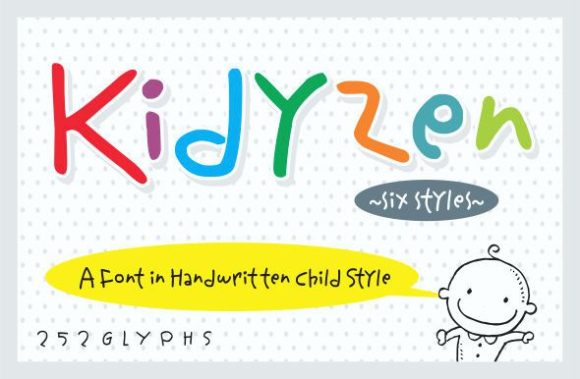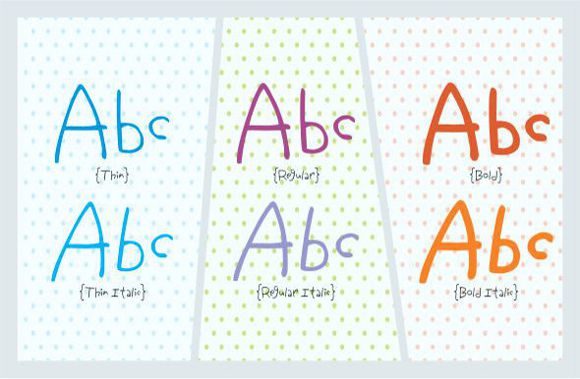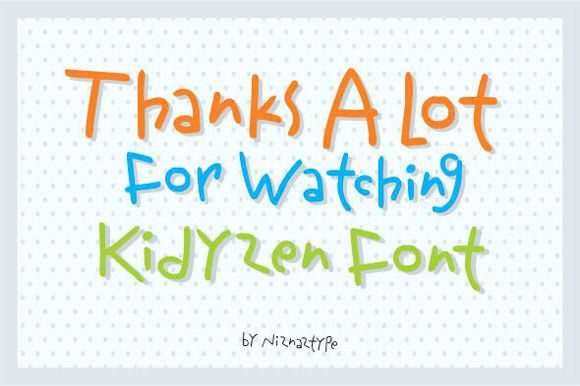
About Kidyzen Font
Introducing “Kidyzen,” a cute and incredibly quirky handwritten font that exudes charm and playfulness. With its unique style, this font is a perfect match for a wide variety of design projects, adding a fun and lighthearted touch to each creation. Whether you’re working on children’s book illustrations, playful social media posts, whimsical quotes, adorable greeting cards, imaginative logos, or creative DIY projects, “Kidyzen” will unleash your imagination with endless possibilities.
Imagine using “Kidyzen” to create captivating children’s book illustrations that transport young readers to a world of wonder and excitement.
For social media posts, “Kidyzen” adds a burst of playfulness, engaging your audience with its cheerful and quirky vibe.
In quotes and greeting cards, “Kidyzen” infuses joy and creativity, spreading smiles and positive vibes to everyone who reads them.
For logos and branding, “Kidyzen” becomes a symbol of fun and creativity, capturing the attention of audiences with its unique and delightful appeal.
With its cute and quirky style, “Kidyzen” is a versatile font that can bring out the playful side of any design.
In conclusion, “Kidyzen” is not just a font; it’s a source of endless creativity and fun. With its incredibly quirky style, “Kidyzen” becomes an indispensable asset for all your design projects. Embrace the cute and playful spirit of “Kidyzen” and let your imagination run wild, knowing that there are no limits to what you can create. Fall in love with the whimsical charm of “Kidyzen,” the handwritten font that adds a dash of creativity and joy to every design, captivating hearts and minds with its adorable and quirky allure.